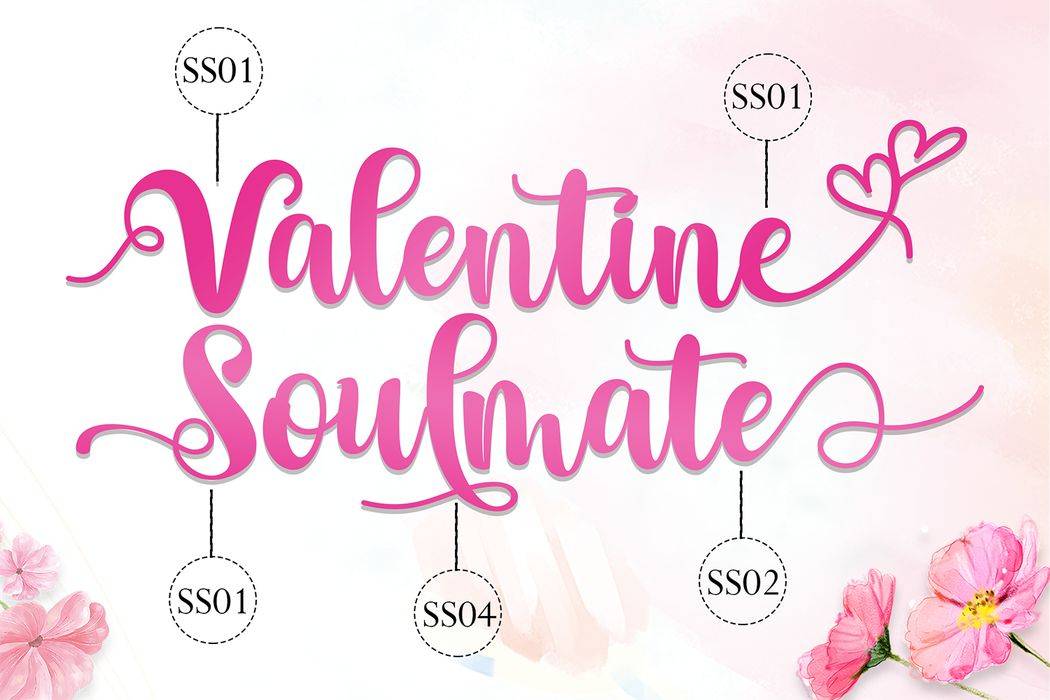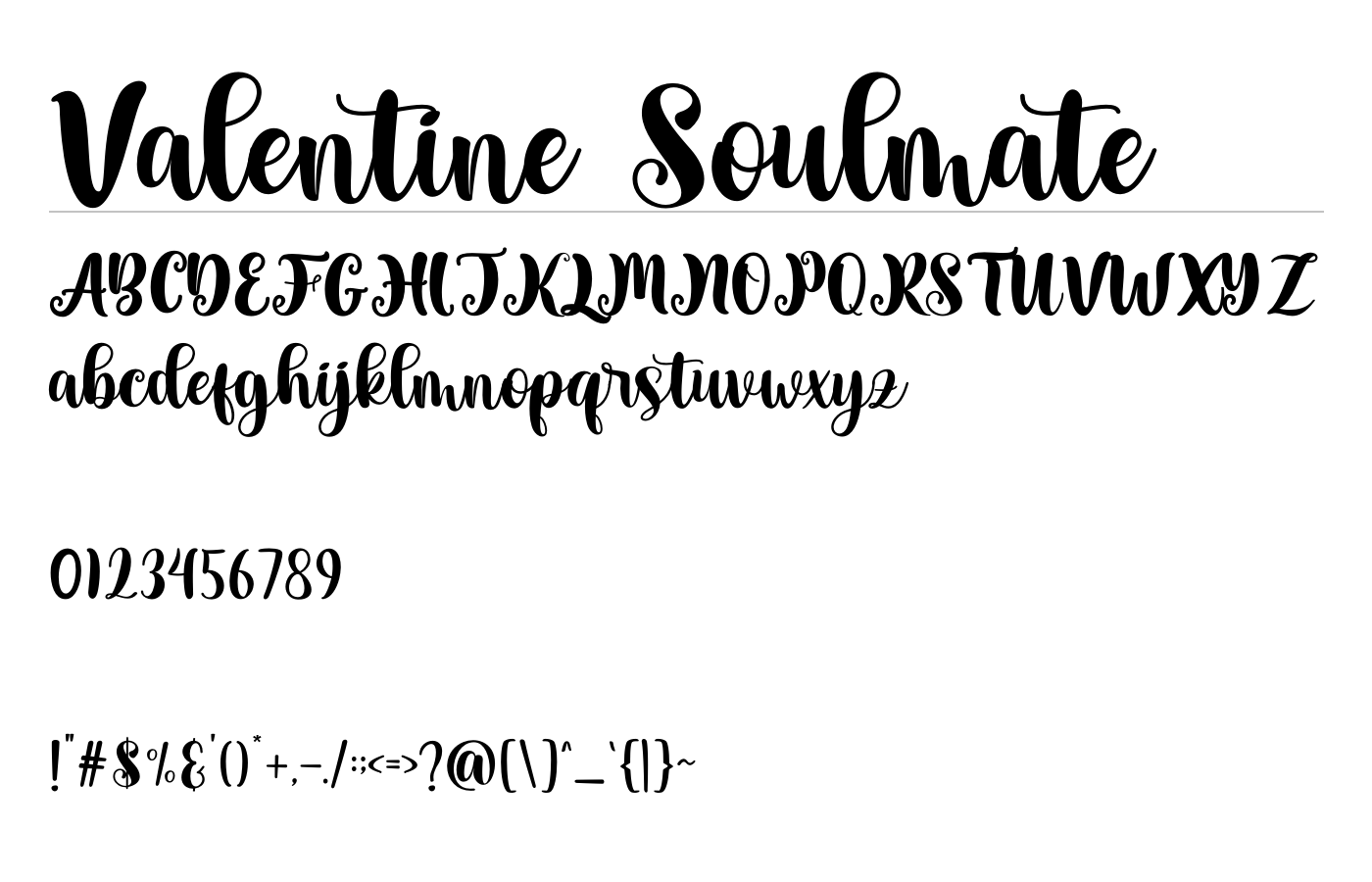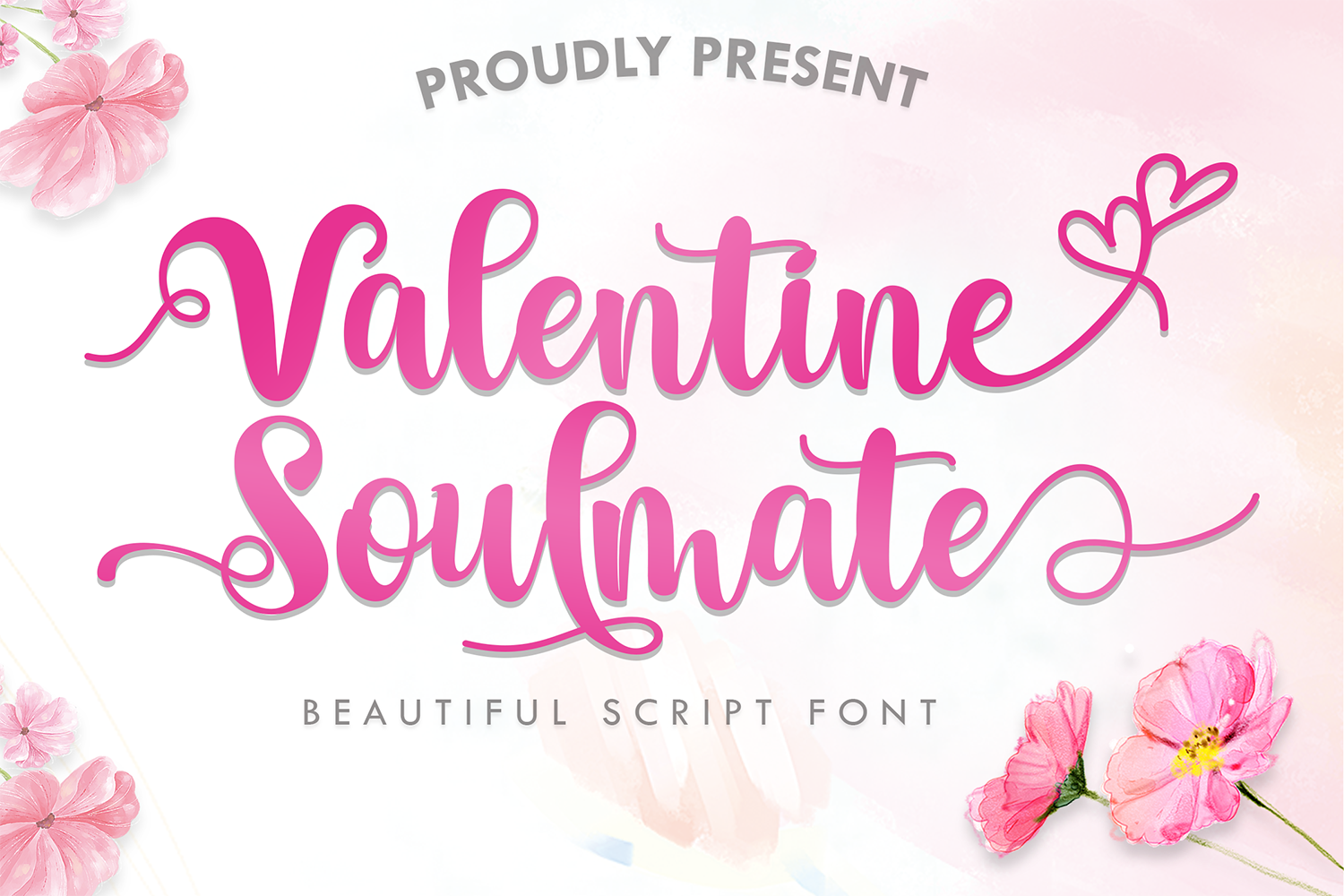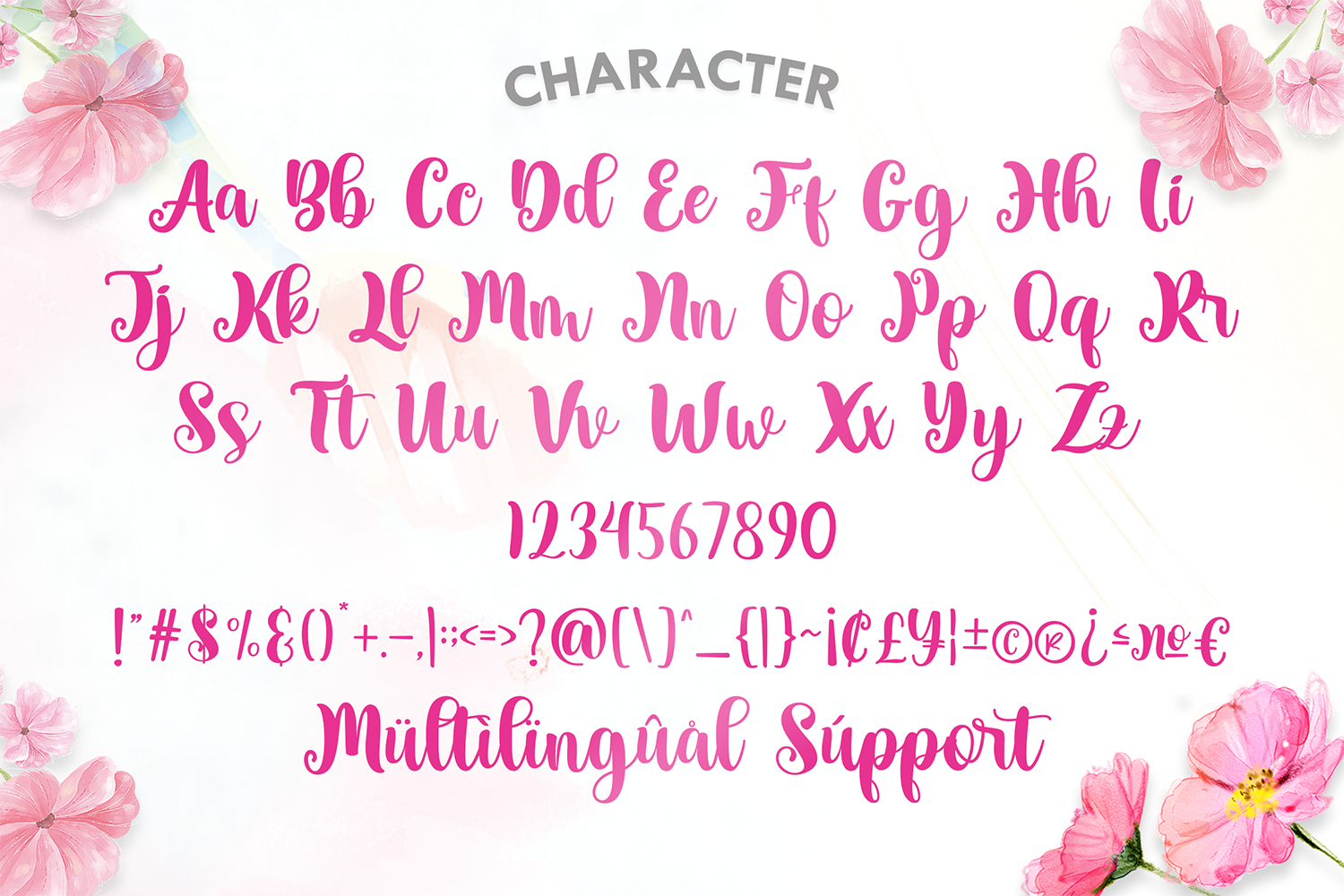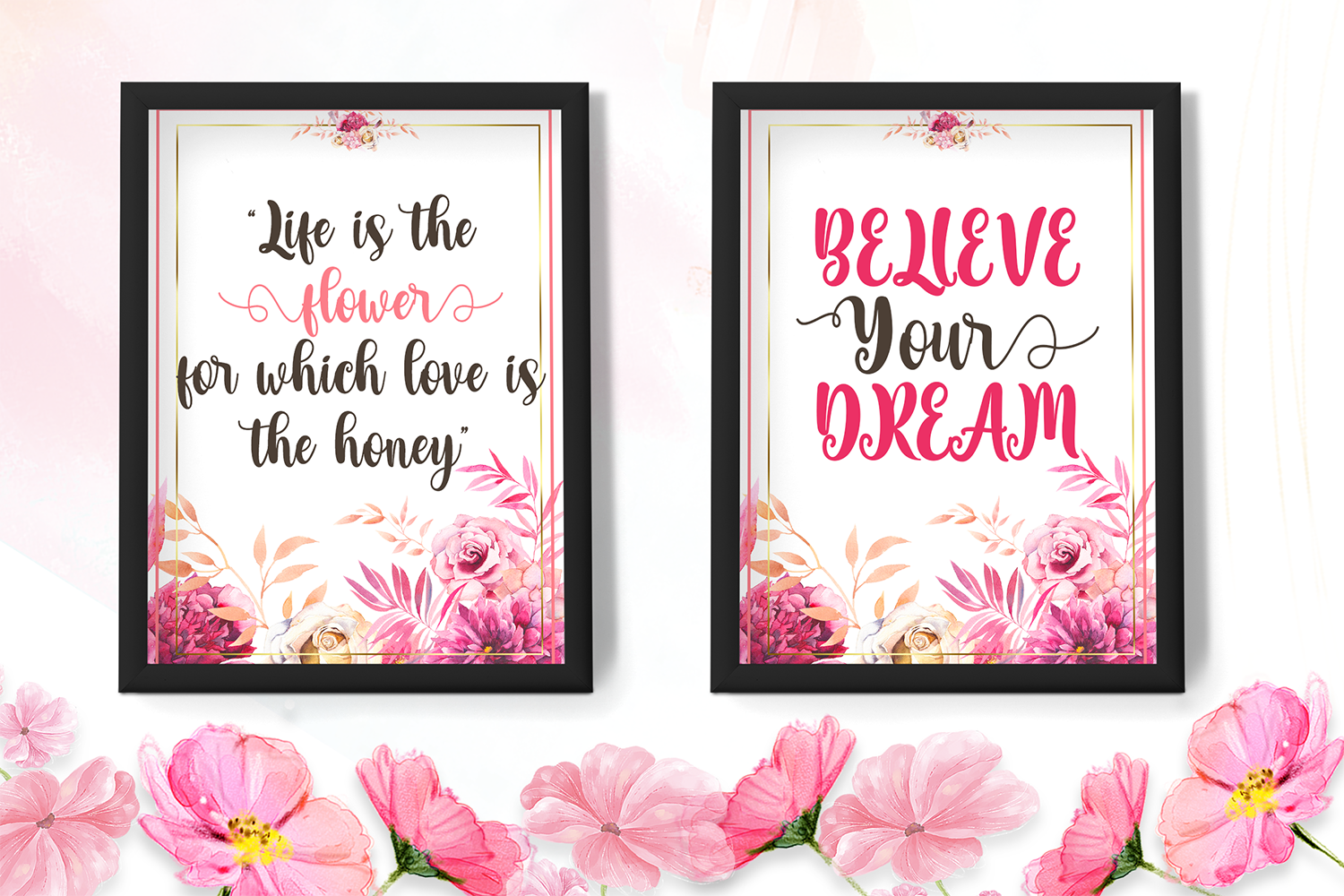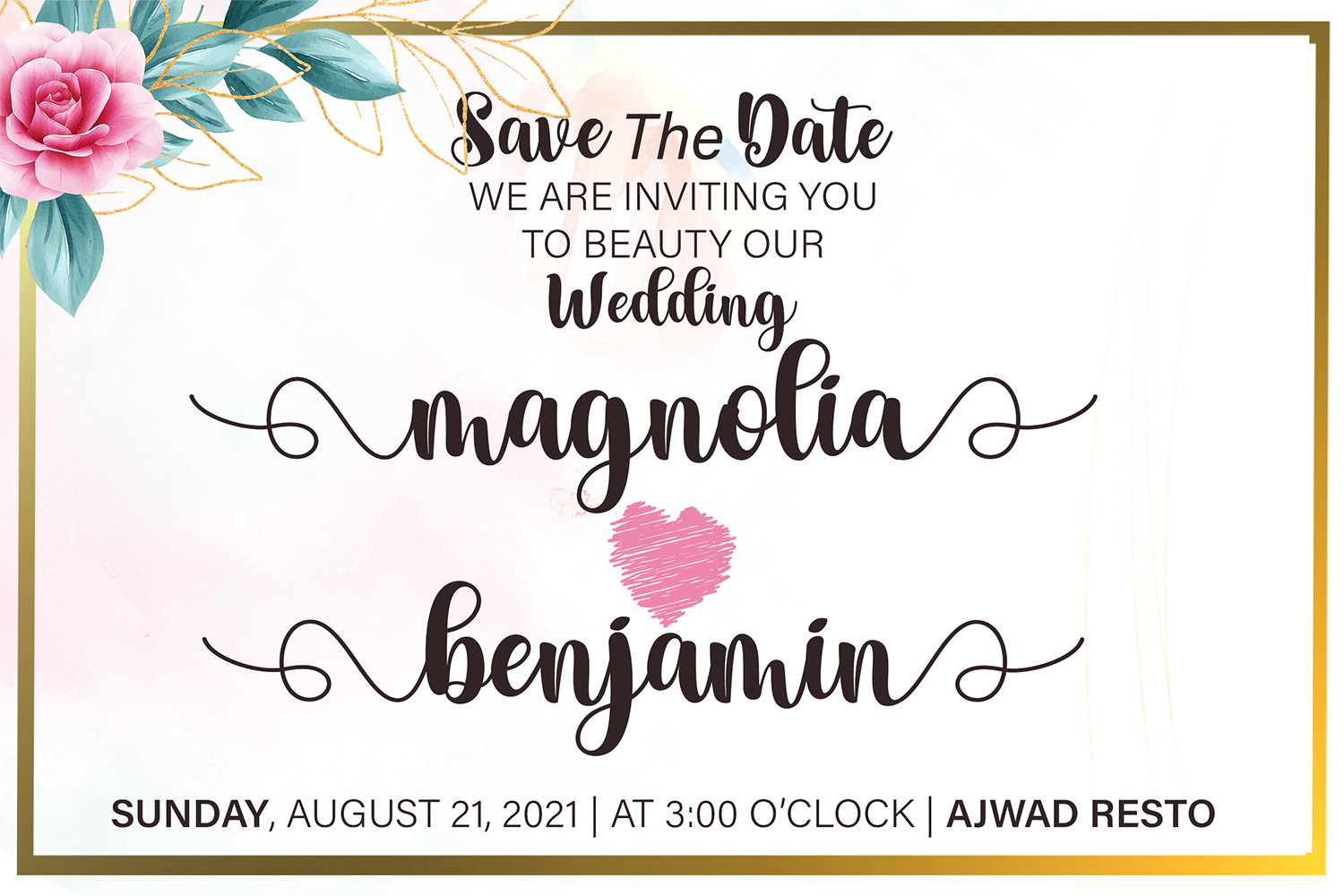
Valentine Soulmate is a charming script font with a warm, handwritten feel, featuring smooth, medium-weight strokes and elegant swashes that add a touch of romance and personality. Its playful yet polished style makes it ideal for invitations, branding, and designs that seek a friendly, approachable, and creative vibe. This font works beautifully in projects aiming to convey warmth and intimacy, such as wedding stationery or boutique packaging.
Valentine Soulmate
About Valentine Soulmate
| Font family | Valentine Soulmate |
| Release date | 2021-07-04 |
| Designer | Fian Muslim Aditya |